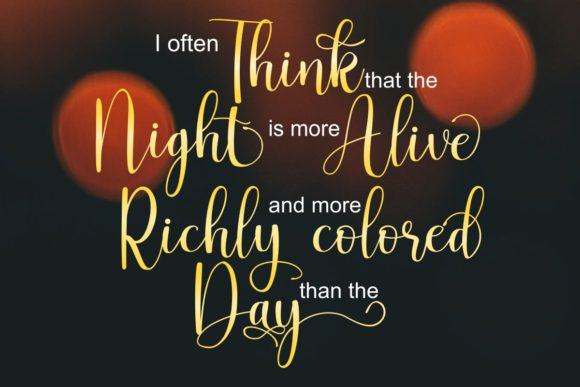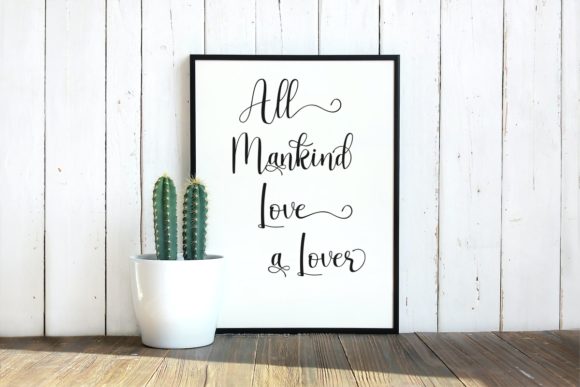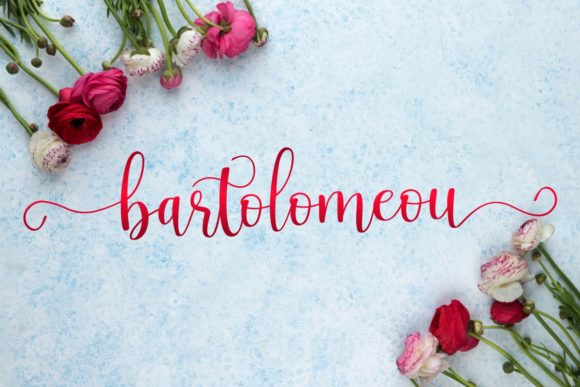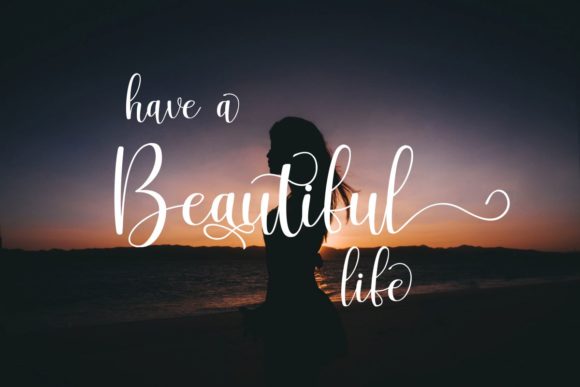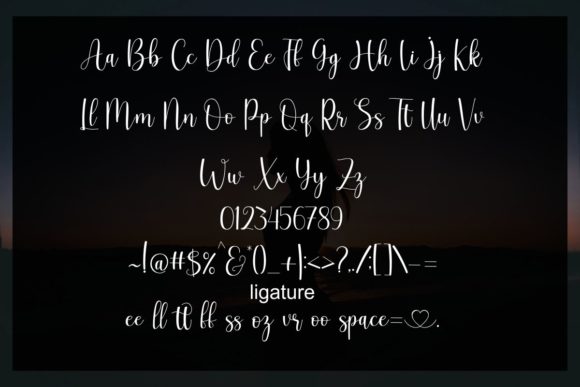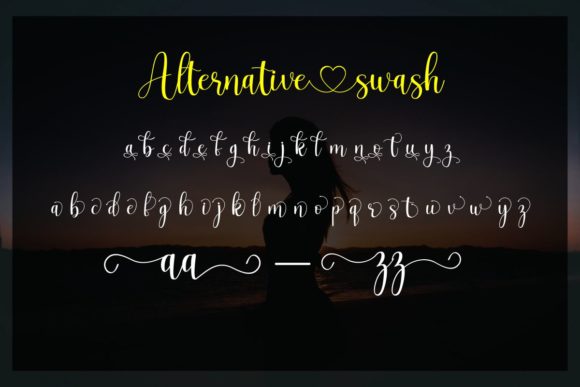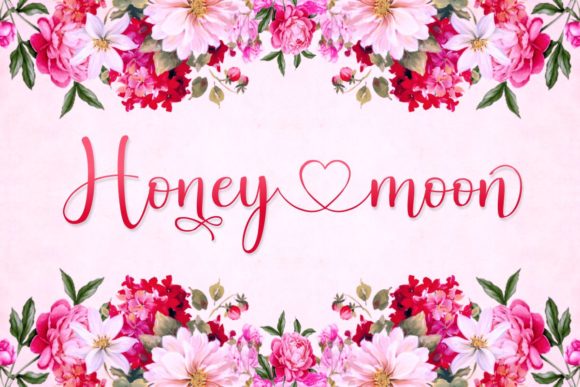
Honey Moon Font
About Honey Moon Font
Honey Moon: Embrace the Elegance of a Flowing Handwritten Font
Introducing Honey Moon, an elegant and flowing handwritten font that exudes grace and sophistication. Its smooth lines and varying baseline create a mesmerizing effect, making it the perfect choice for your creative projects. With PUA encoding, accessing all the beautiful glyphs and swashes is effortless, allowing you to add a touch of uniqueness to your designs. Honey Moon strikes the perfect balance between classic calligraphy and contemporary freshness, making it an exceptional font to elevate your projects to new heights of beauty and elegance.
The allure of Honey Moon lies in its elegant and flowing nature. Each letter is carefully crafted to maintain the timeless charm of calligraphy while embracing a modern twist, captivating the eye and creating a lasting impression.
Designing with Honey Moon is a delightful experience. Its smooth lines and stunning alternates bring a touch of authenticity to your creations, making them truly special and captivating.
Fall in love with the versatility of Honey Moon. Whether you’re designing elegant wedding invitations, crafting refined logos, or creating stunning social media graphics, this font adapts effortlessly to suit your creative vision.
Unleash your creativity with Honey Moon. Its exquisite glyphs and swashes allow you to add unique details to your designs, making them stand out and exude a sense of elegance and individuality.
Gorgeous designs come to life with Honey Moon’s elegant and flowing style. Whether you’re celebrating a romantic event or designing sophisticated branding, this font adds a touch of grace that mesmerizes your audience.
In conclusion, Honey Moon is more than just a font; it’s an elegant masterpiece that invites you to embrace the allure of flowing handwritten beauty. Embrace its graceful charm, and let it become the heart of your most cherished projects. Whether you’re crafting love-filled wedding invitations, expressing creativity through branding, or engaging in any creative endeavor, Honey Moon will be your trusted companion, adding a touch of elegance and sophistication. Allow this font to unlock the full potential of your creativity, and watch as your projects reach the highest levels of beauty and refinement. Fall in love with the timeless spirit of Honey Moon, and let it guide you to create truly exceptional designs that leave a lasting impact on all who see them.